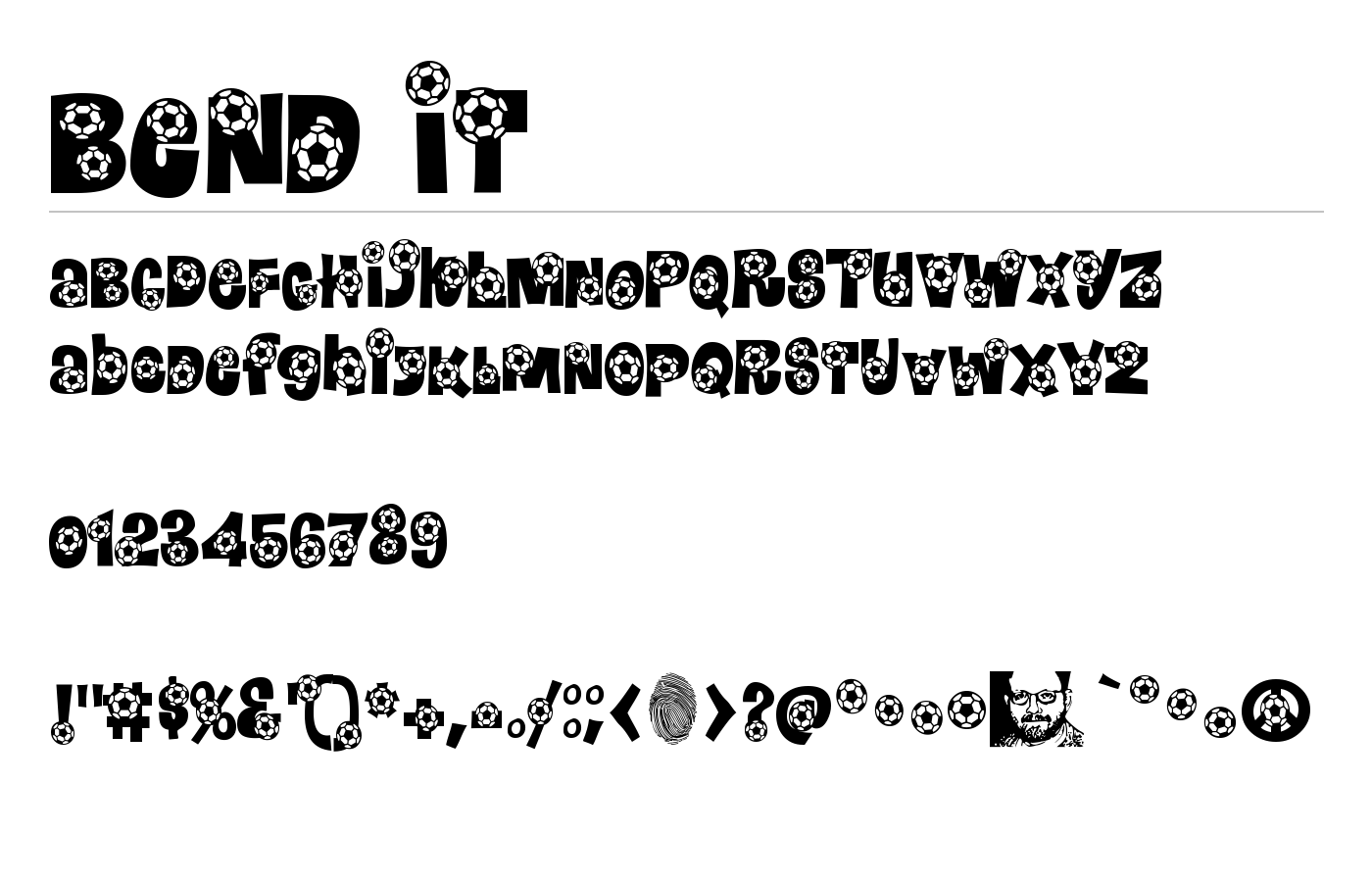
Bend It Font is a bold, playful display typeface with thick, irregular letterforms that feature whimsical soccer ball motifs integrated into many characters. Its chunky, condensed style combined with high contrast and quirky shapes gives it a fun, sporty personality, making it ideal for youth sports branding, event posters, or any design needing energetic and eye-catching typography. This font shines in headlines and logos where a lively, casual vibe is desired.
Bend It Font